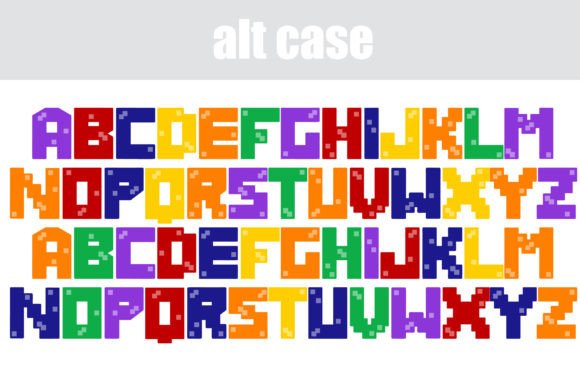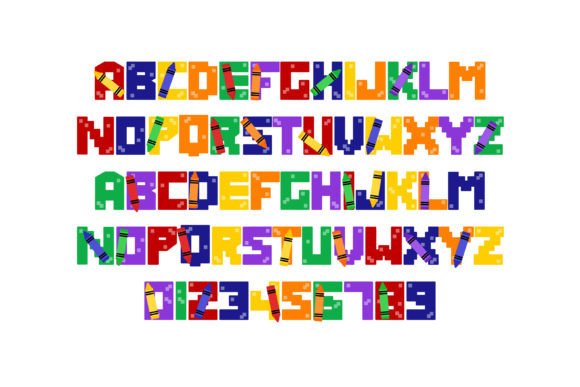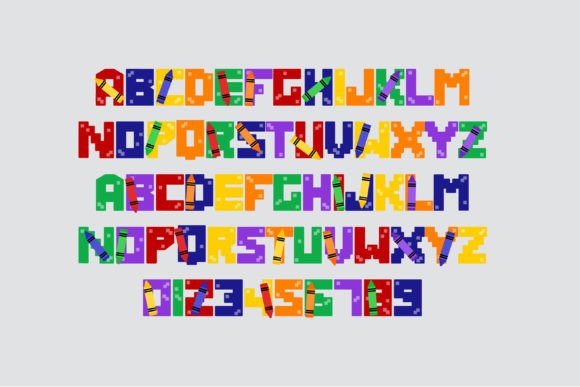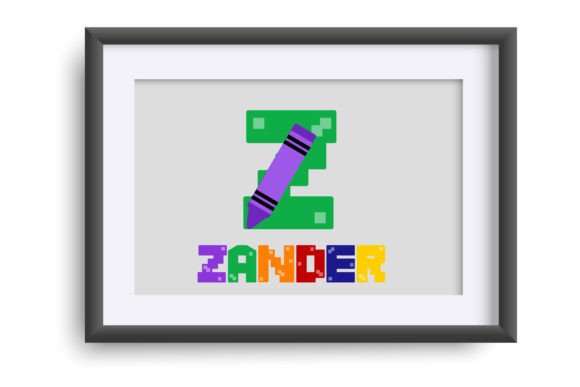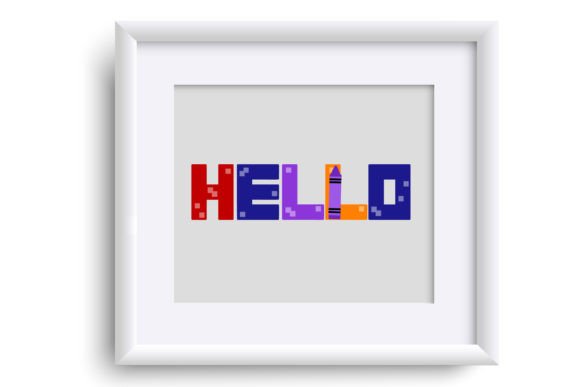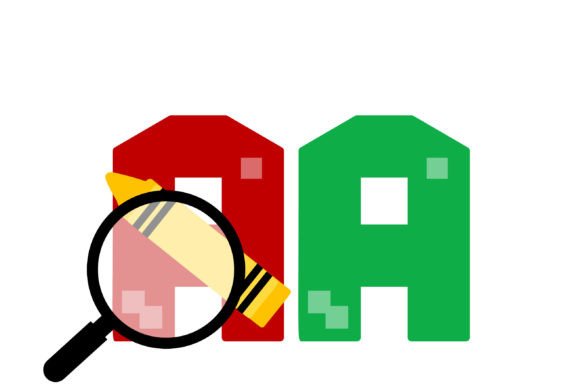
Introduction to Pixelcraft Crayon Font
This full-color font features a pixelated font with bright colored crayons.
There is an alt case of additional colors for each letter you can access through your systemโs character map This font works best for titles, displays, posters and more.
Key Features of Pixelcraft Crayon Font